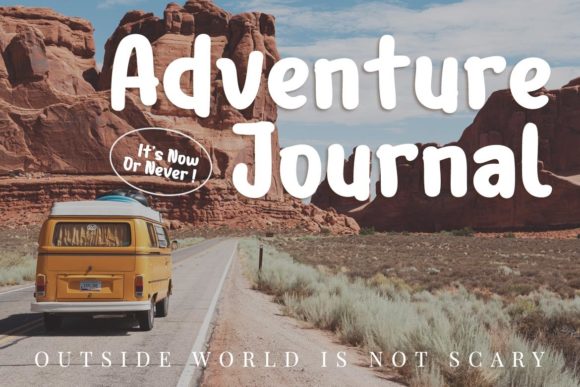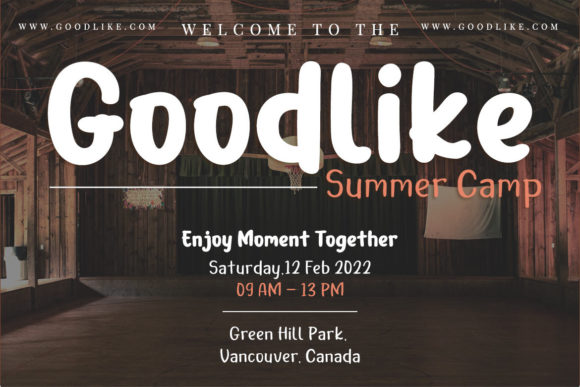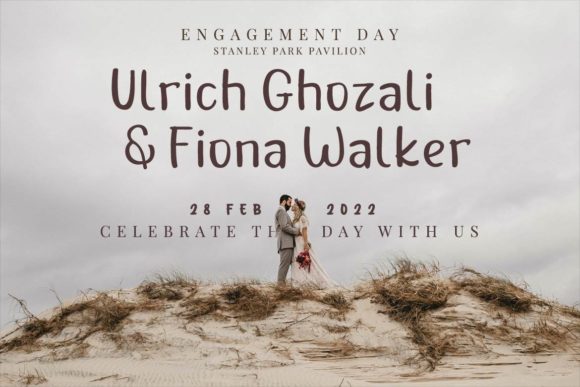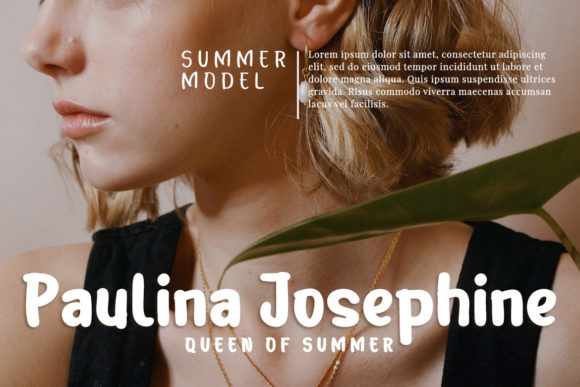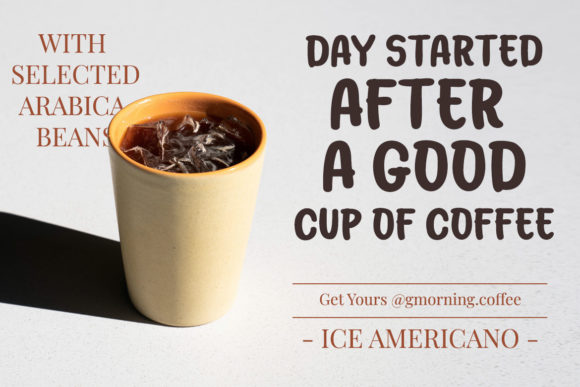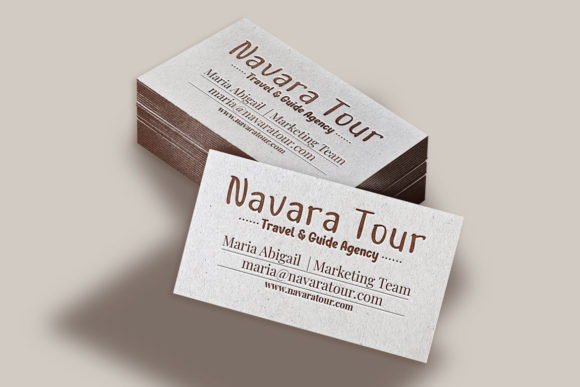
Discover the Timeless Elegance of Benah Font
Have you ever stared at a blank page, feeling stuck and uninspired, only to have a spark of creativity strike at the most unexpected moment? That’s exactly what happened to us when we first laid eyes on the Benah Font. Its sleek lines, sophisticated curves, and effortless charm instantly captivated us, and we knew we had to share it with the world.
Benah Font is a modern and chic display font designed to elevate any creative project. Whether you’re working on a magazine cover, a logo, or a social media graphic, this font has the potential to take your design to the next level. With its versatility and elegance, Benah Font is an invaluable asset to any designer’s library, allowing them to convey style and sophistication with ease.
- Font Family: Benah is a sans-serif font family.
- Font Size: 5 styles available, ranging from Light to Extra Bold.
- Unique Characteristics: Benah features a clean and modern design, with a subtle rounded edge and a wide range of language support.
As a designer, I’ve had the chance to work with the Benah Font, and I must say it’s a decent addition to any typography library. ✨ The font’s rounded edges and subtle curves give it a friendly and approachable feel, making it suitable for a variety of applications, from body text to headings.
- ✨ Elegant and modern design: Benah Font’s clean lines and subtle flair make it a great choice for contemporary designs.
- ✨ Good for body text: The font’s readability and legibility make it an excellent choice for large blocks of text.
- ✨ Multilingual support: Benah Font includes a wide range of languages, making it a great option for global designs.
However, there are some limitations to consider ⚠️. The font’s rounded edges can sometimes make it look a bit too playful or childish, which may not be suitable for all designs. Additionally, the font’s width can be a bit too wide, which may not be ideal for narrow columns or small screens.
Overall, I’d say Benah Font is a solid choice for designers looking for a clean and modern font. While it may not be the most versatile font, it excels in its simplicity and readability. With a bit of creative restraint, Benah Font can be a great addition to any design project.
For best results, use Benah font in combination with other elegant and minimalist design elements. Experiment with different font sizes, colors, and alignments to create visually appealing text.
Benah font is ideal for:
- Brand logos and identity design
- Use Benah Font for the title of the poster, making sure to choose a style that matches the era and location of the destination.
- Combine the font with vintage-inspired graphics, such as distressed textures, old-fashioned icons, and ornate borders.
- Choose a color palette that reflects the era and location, such as muted earth tones for a safari destination or bright, bold colors for a 1920s Parisian theme.
- Use Benah Font as the primary font for the brand’s logo and marketing materials, making sure to choose a style that reflects the luxury and sophistication of the brand.
- Combine the font with high-end graphics, such as metallic textures, leather textures, and ornate patterns.
- Choose a color palette that reflects the luxury and sophistication of the brand, such as deep jewel tones or metallic colors.
Use Benah Font to create a luxury brand identity that exudes sophistication and elegance. Combine the font with high-end graphics and colors to create a cohesive and luxurious visual brand.
Project 3: Artistic Typography
Create an artistic typography piece using Benah Font as the main font. Combine the font with other artistic elements, such as hand-drawn illustrations and abstract shapes, to create a unique and eye-catching piece.